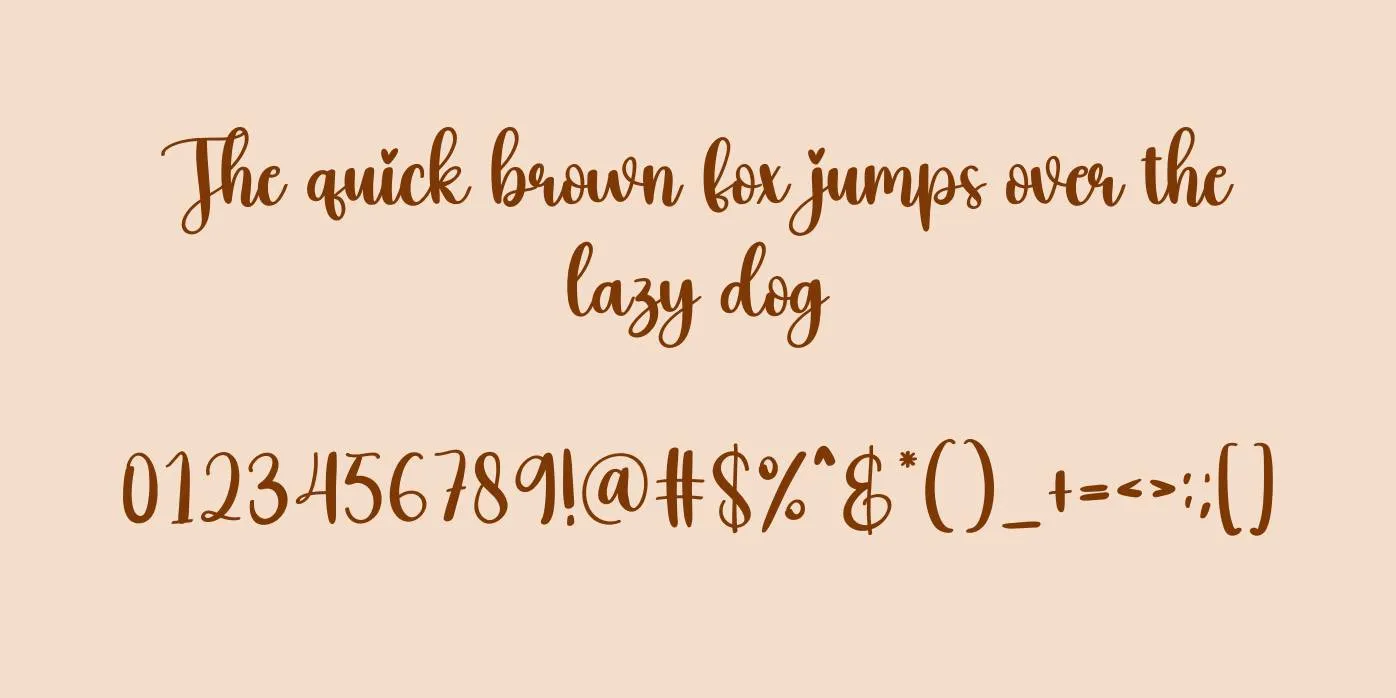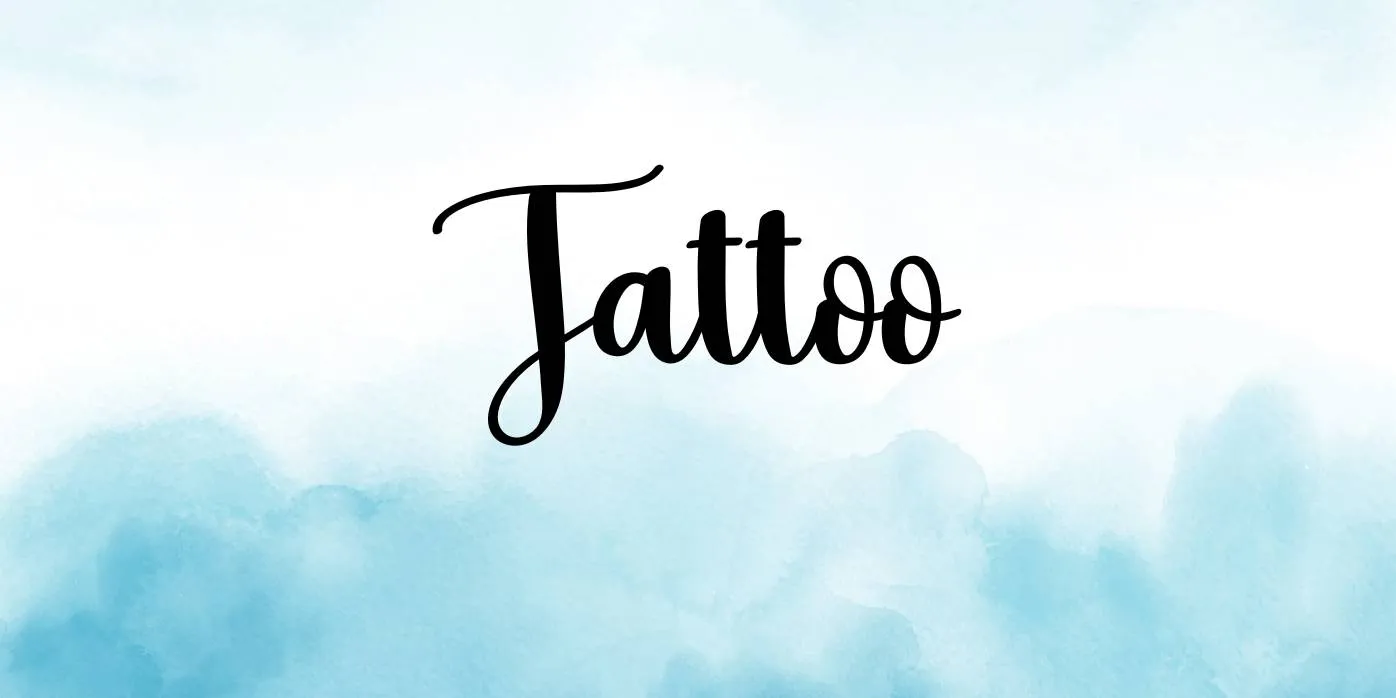
Tattoo Font
Let’s talk about a very nice and amazing font. The tattoo Font was designed by Scratchones. This font is a very classy script font. You can be used to design so many different projects.
The weight of the font is normal and its width is medium (normal). It has various styles and you can use it for a lot of projects. To give a more attractive look to your projects you can use it for pairing with other fonts like angilla tattoo font. Usage It contains characters, symbols numbers, punctuations, lowercase letters, uppercase letters, special characters ad much more.
You can utilize this classy font to make titles and headings an attractive look. You can use this font for making wedding invitations, and other events invitations. Different types of social media posts can also be made by using this font. This font is used to make thumbnails for social media posts and advertisements of other products.
For making or editing designs in Adobe Photoshop and CSS you can also use this. It is considered a good font for making both types of media print and digital. It is also a suitable choice for printing text on T-shirts and Mugs. Product packing and branding can also be done by using this font.